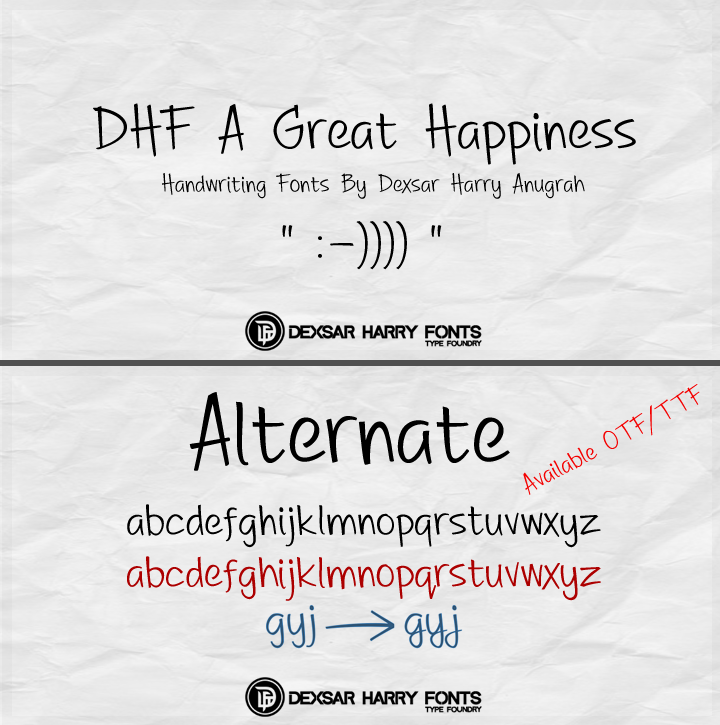
Preview and download DHF A Great Happiness Font. Created by Dexsar Harry Anugrah in Script Handwritten styles with Free for personal use license.
Free For Personal ONLY! A Great Happiness is a Handwriting Font that comes with 261 Glyphs. To feel handwriting, double letters of this font will appear different! Donate me under Download Button if you like this font, Any Donation I Always Appreciate! For COMMERCIAL USE Purchase this font & license → http://majestype.com Like my Facebook Page → http://www.facebook.com/majestype follow our twitter → http://www.twitter.com/majestype Thanks! |